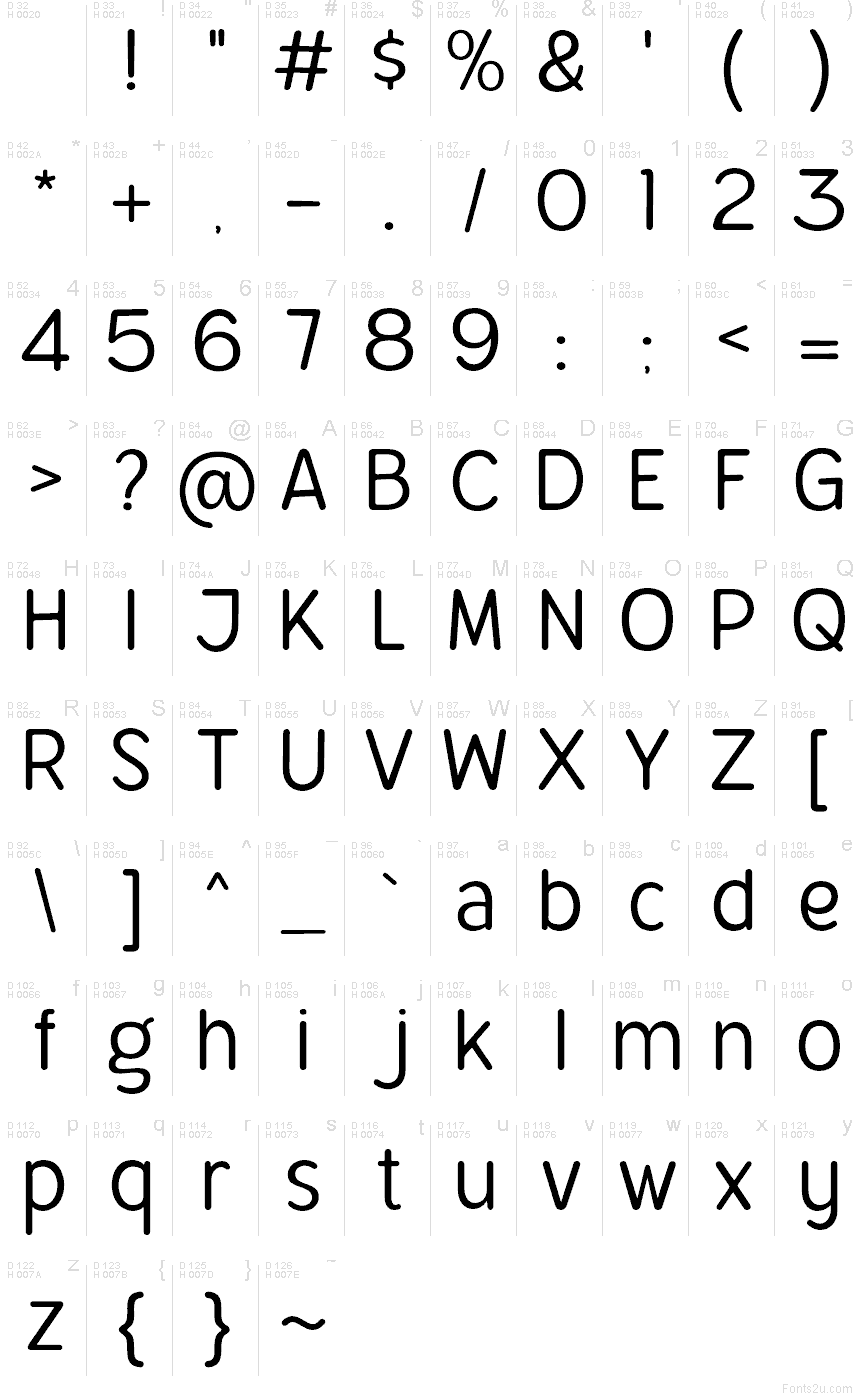
Bener Rounded Regular
Bener Rounded font by Musthafa Kamal - Afkari Studio is a free rounded sans serif typeface that smooths out harsh edges without losing clarity. Its even strokes, generous curves, and gentle corners give text a warm, friendly tone while staying clean and legible at smaller sizes. Sitting in the Bener family, it has that soft, inked-on-paper feel that makes digital layouts look more human and approachable.
Using Bener Rounded, you can bring an easygoing voice to app interfaces, children’s products, casual branding, packaging, posters, and social media graphics. The open shapes and relaxed rhythm keep copy readable, even in longer chunks like onboarding screens or short editorials. This free font pairs nicely with a neutral geometric sans for body text—set Bener Rounded a size or two larger for headings to really show off its cozy character.